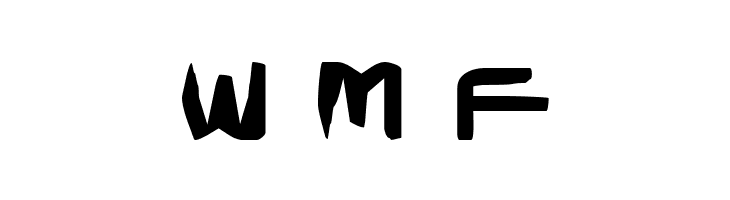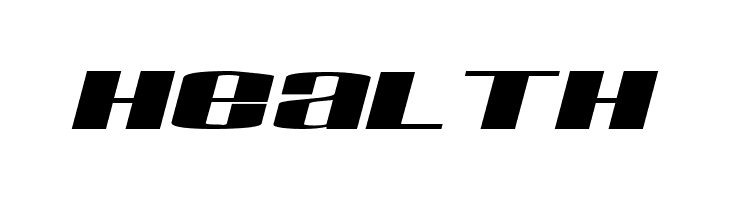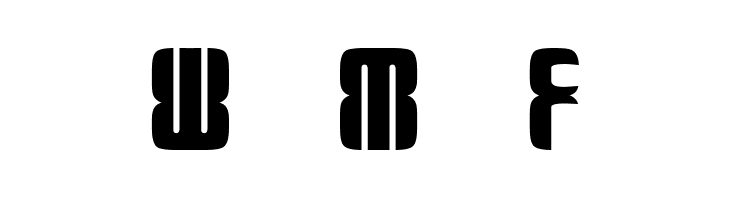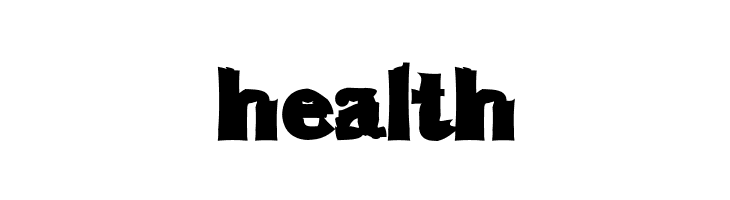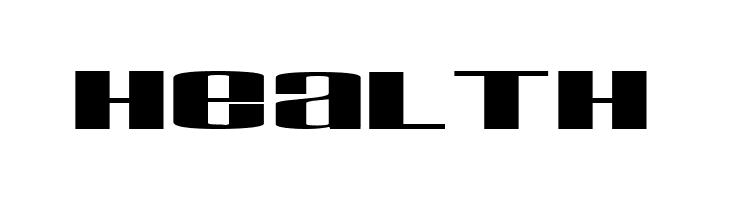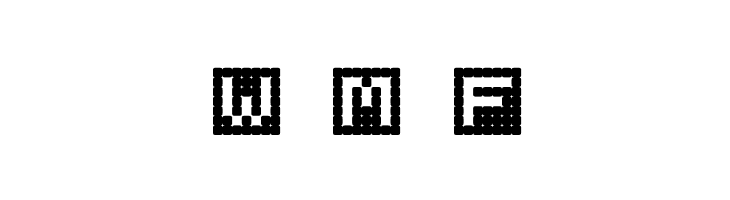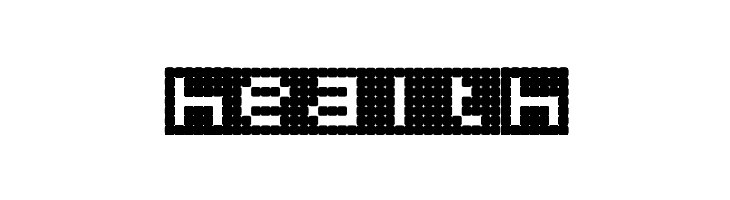
Stångkorv Font
Font by TarmSaft Font Factory - http://www.aska.nu/tarmsaft/
A modern, rounded sans-serif font with a friendly and approachable style.
Onani Font
Font by TarmSaft Font Factory - http://www.aska.nu/tarmsaft/
A bold, slanted font with high contrast and a dynamic, modern style.
Slidfis saftig Font
Font by Beyond Design - Ola Bjorling
A bold, geometric outline font with a modern, three-dimensional appearance.
Galla Bold Font
Font by TarmSaft Font Factory - http://www.aska.nu/tarmsaft/
A bold, playful font with rounded edges and a hand-drawn style.
Slidfis Font
Font by Beyond Design - Ola Bjorling
A geometric, modern font with clean lines and a technical appearance.
Bajsmaskin Font
Font by TarmSaft Font Factory - http://www.aska.nu/tarmsaft/
A bold, serif font with a medieval flair and sharp, angular serifs.
V-ldt-kt Font
Font by TarmSaft Font Factory - http://www.aska.nu/tarmsaft/
A bold, playful font with an irregular, organic shape and a hand-drawn aesthetic.
Bantarbjörn Heavy Font
Font by TarmSaft Font Factory - http://www.aska.nu/tarmsaft/
A bold, playful font with rounded, thick strokes and a friendly appearance.
Galla Font
Font by TarmSaft Font Factory - http://www.aska.nu/tarmsaft/
A playful, handwritten font with rounded, informal letterforms.
Pormask Ytterhud Font
Font by TarmSaft Font Factory - http://www.aska.nu/tarmsaft/
A bold, outlined font with a playful and three-dimensional appearance.
Arsle Gothic Font
Font by TarmSaft Font Factory - http://www.aska.nu/tarmsaft/
A bold, Gothic-inspired font with a modern yet classic appeal.
Läderbög Font
Font by TarmSaft Font Factory - http://www.aska.nu/tarmsaft/
An edgy, thorn-inspired font with a bold and dramatic style.
Tidelagskoprofag Font
Font by TarmSaft Font Factory - http://www.aska.nu/tarmsaft/
A bold, decorative font with a three-dimensional outline and shadow effect.
Flytningar Font
Font by TarmSaft Font Factory - http://www.aska.nu/tarmsaft/
A dot-based font with a digital, modern aesthetic, ideal for tech-themed designs.
Galla Black Font
Font by TarmSaft Font Factory - http://www.aska.nu/tarmsaft/
A bold, playful font with rounded edges and a cartoonish style.
Äggstock Font
Font by TarmSaft Font Factory - http://www.aska.nu/tarmsaft/
A bold, handwritten font with dynamic and expressive strokes.
Pungen Font
Font by TarmSaft Font Factory - http://www.aska.nu/tarmsaft/
A modern, rounded sans-serif font with a friendly and approachable style.
Bajsporr Font
Font by TarmSaft Font Factory - http://www.aska.nu/tarmsaft/